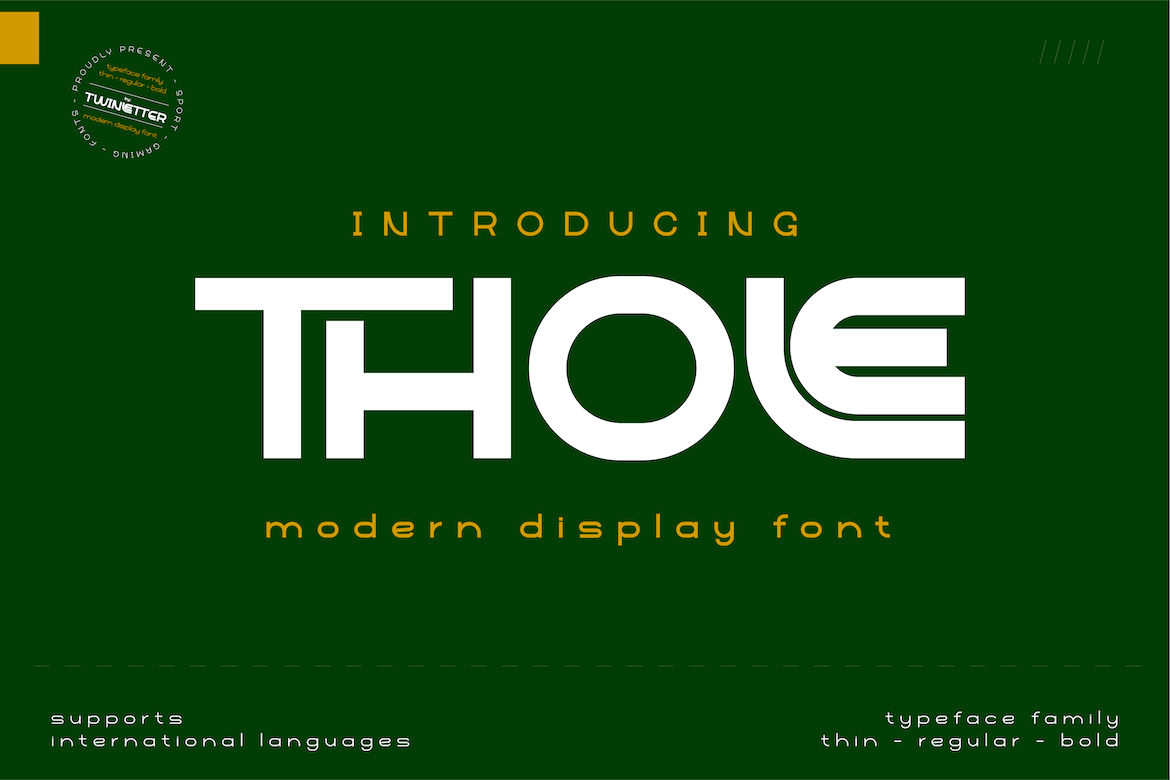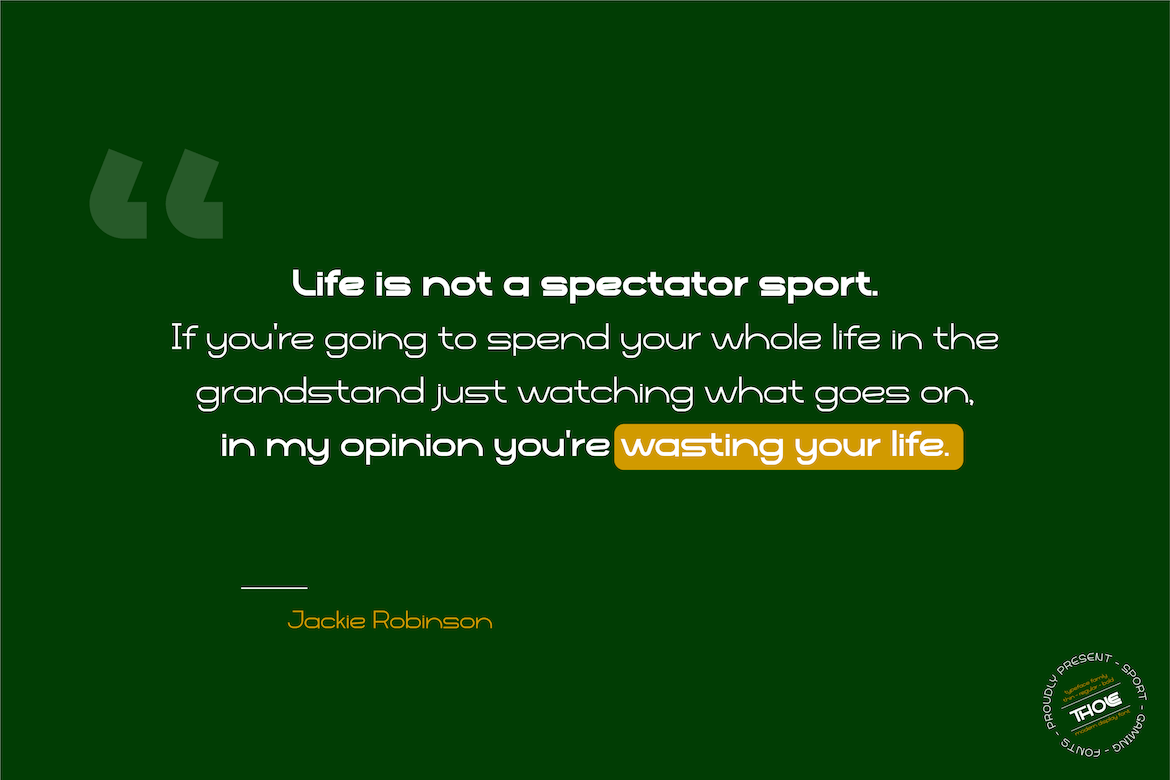
Thole
Introducing the Thole font, a very elegant and clean san serif family, with a characteristic width and graceful impression, for designs with feminine or masculine themes, this font will look strong and strong in your design projects. There is a strong impression in this font, both from the width of the letters, the corners in this font are also equipped with ligatures and alternates to complement your needs.
This font is perfect for games, sporting events, branding, banners, posters, movie titles, book titles, quotes, clothing, logotypes, and more.
of course, your various design projects will be perfect and extraordinary if you use this font because this font is equipped with a complimentary font family, both for titles and subtitles and sentence text.